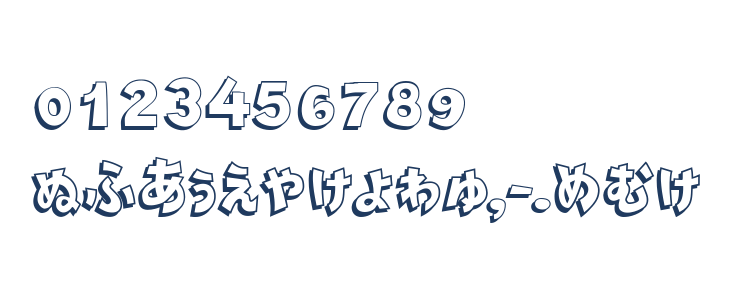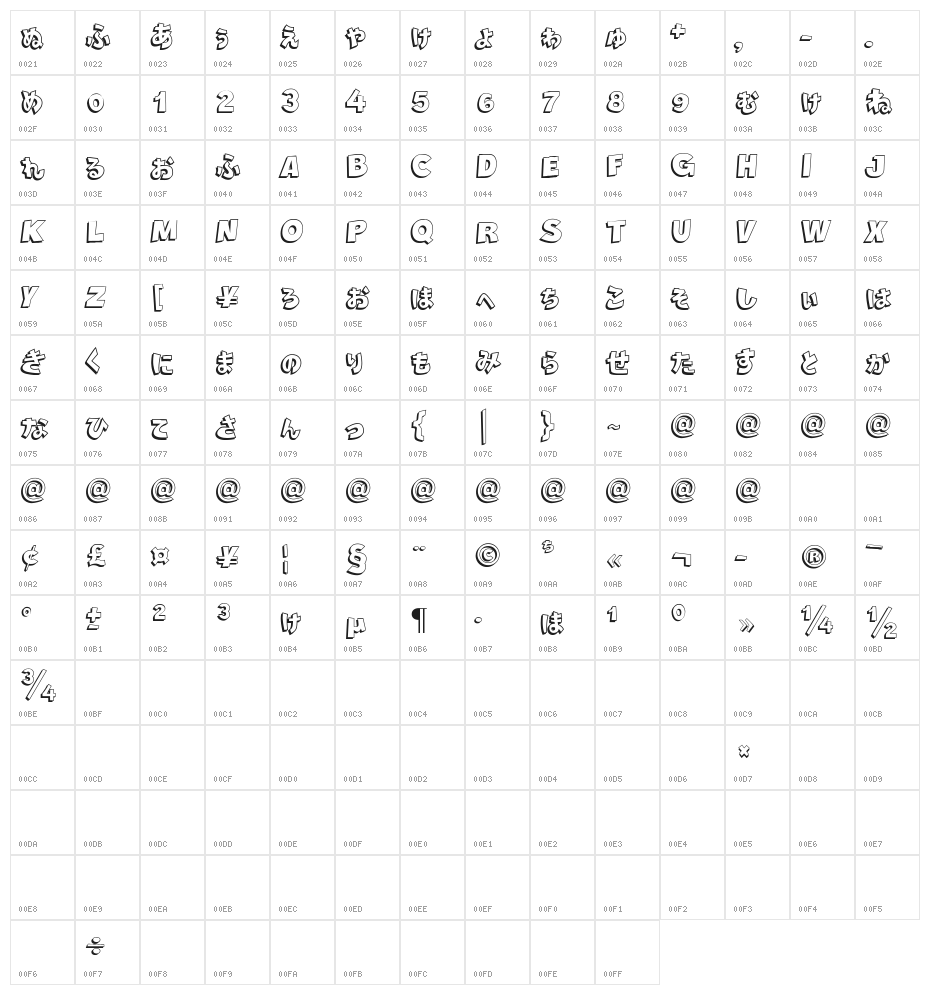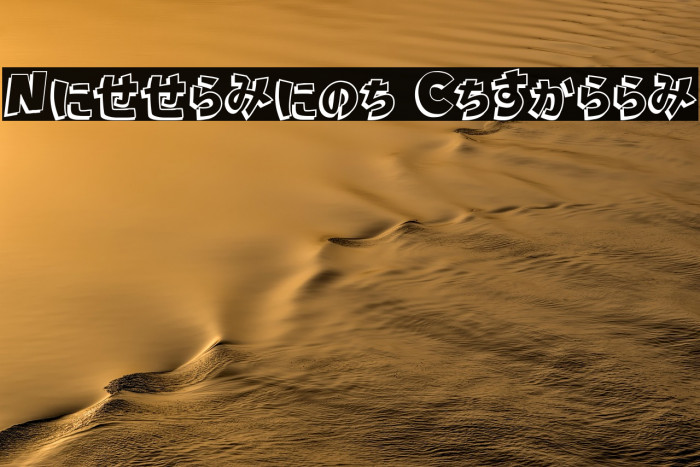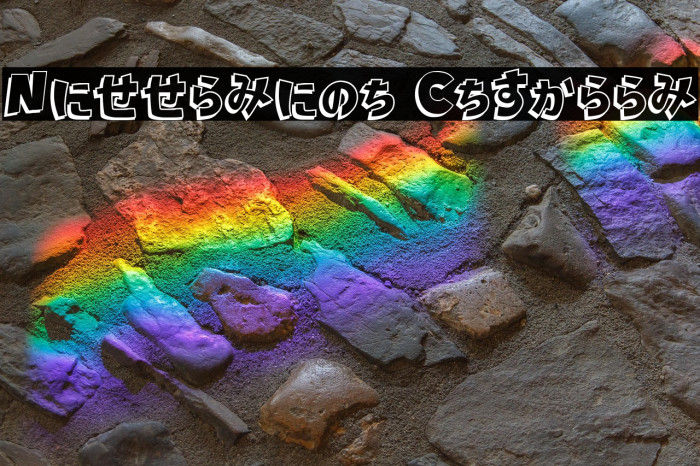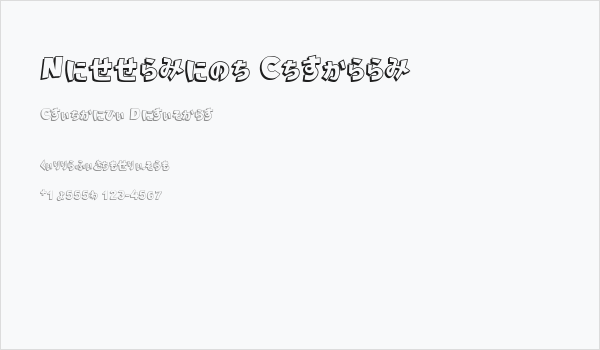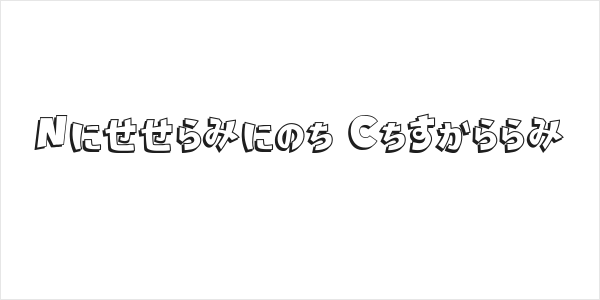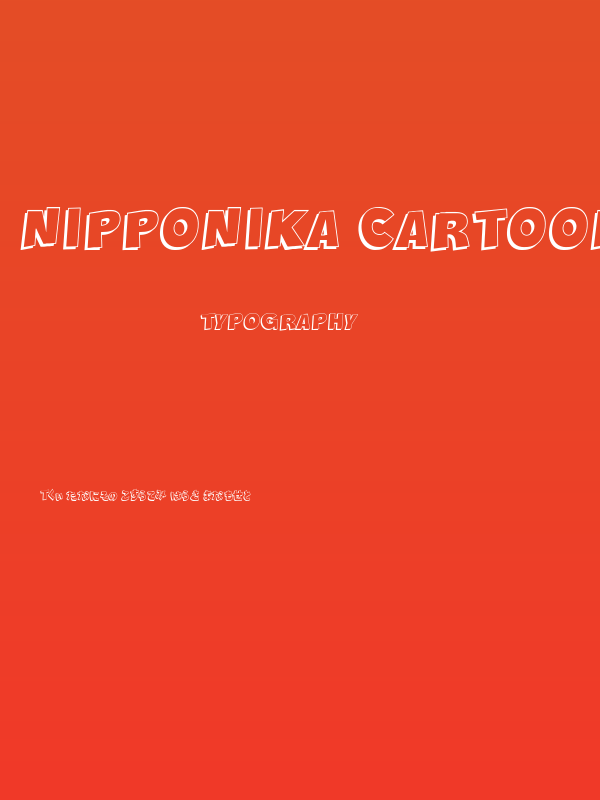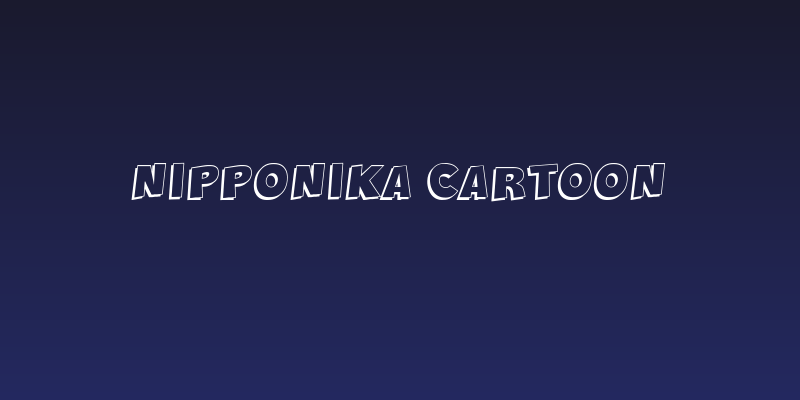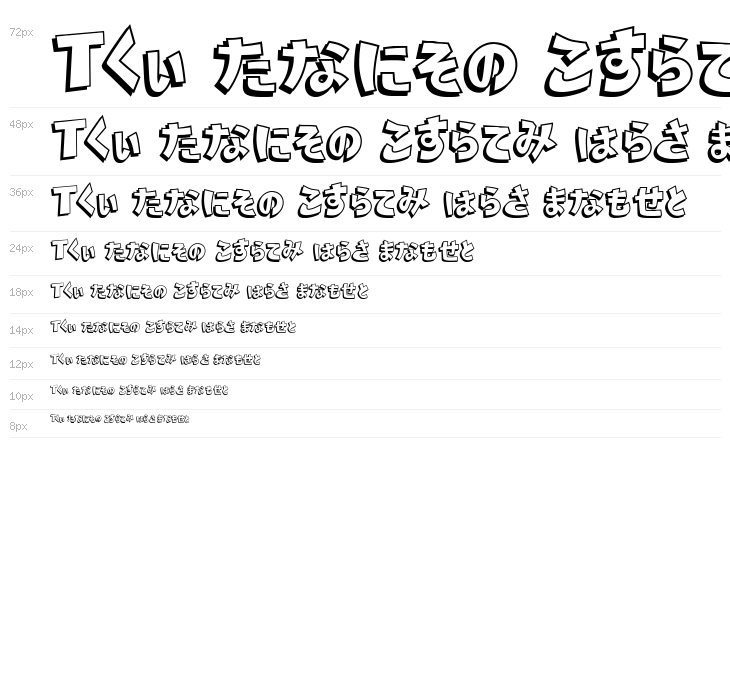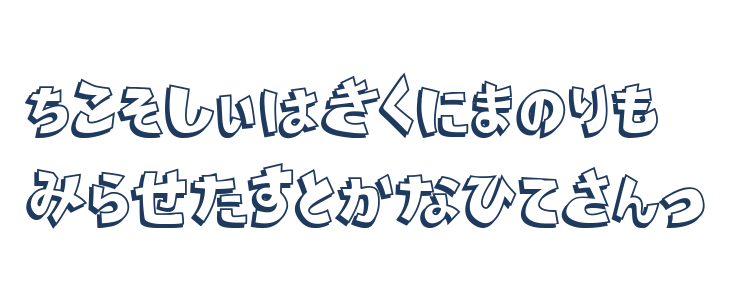
Nipponika Cartoon Font
This playful and bold font features a cartoonish style with thick, exaggerated strokes and a three-dimensional effect. The characters have a dynamic, energetic appearance, making them stand out with a fun, lively vibe. The uppercase letters are particularly striking, with a slight tilt that adds to the whimsical feel. The numbers and special characters maintain this playful aesthetic, ensuring consistency across all glyphs. This font is perfect for projects that require a touch of humor and creativity, such as children's books, comic strips, or playful branding.
Overall StylePlayful, Cartoonish, Energetic
Proposed ProjectsIdeal for children's books, comic strips, playful branding, and creative posters.